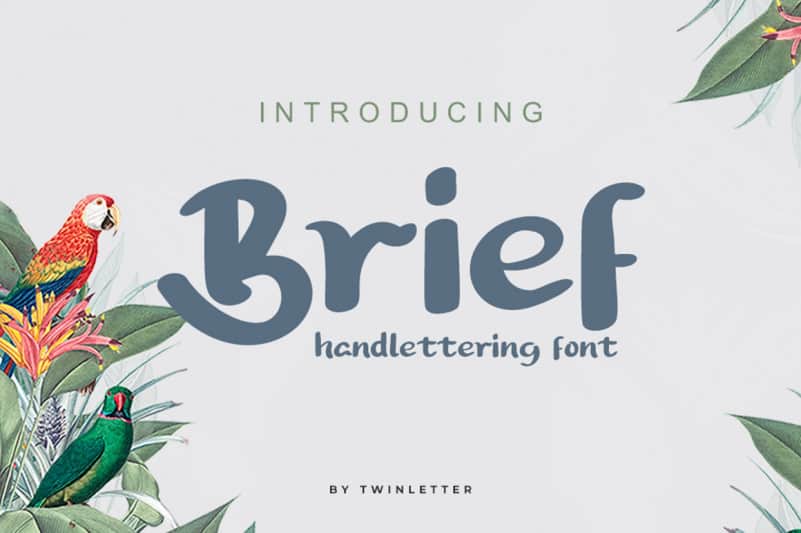
Brief Script Font
Brief Script Font is a bold handwritten font, carefully handcrafted to become a true favorite. Its casual charm makes it appear wonderfully down-to-earth, readable and, ultimately, incredibly versatile. Brief will look outstanding in any context, whether it’s being used on busy backgrounds or as a standalone headline!